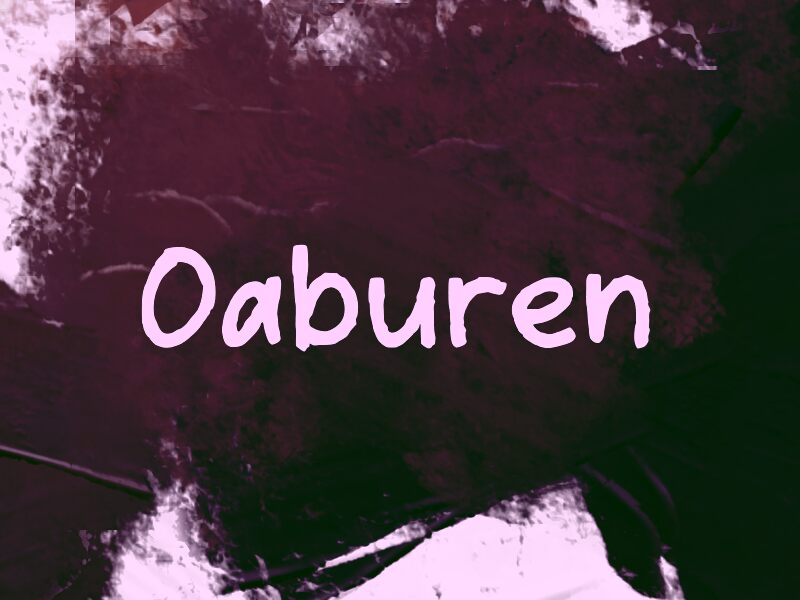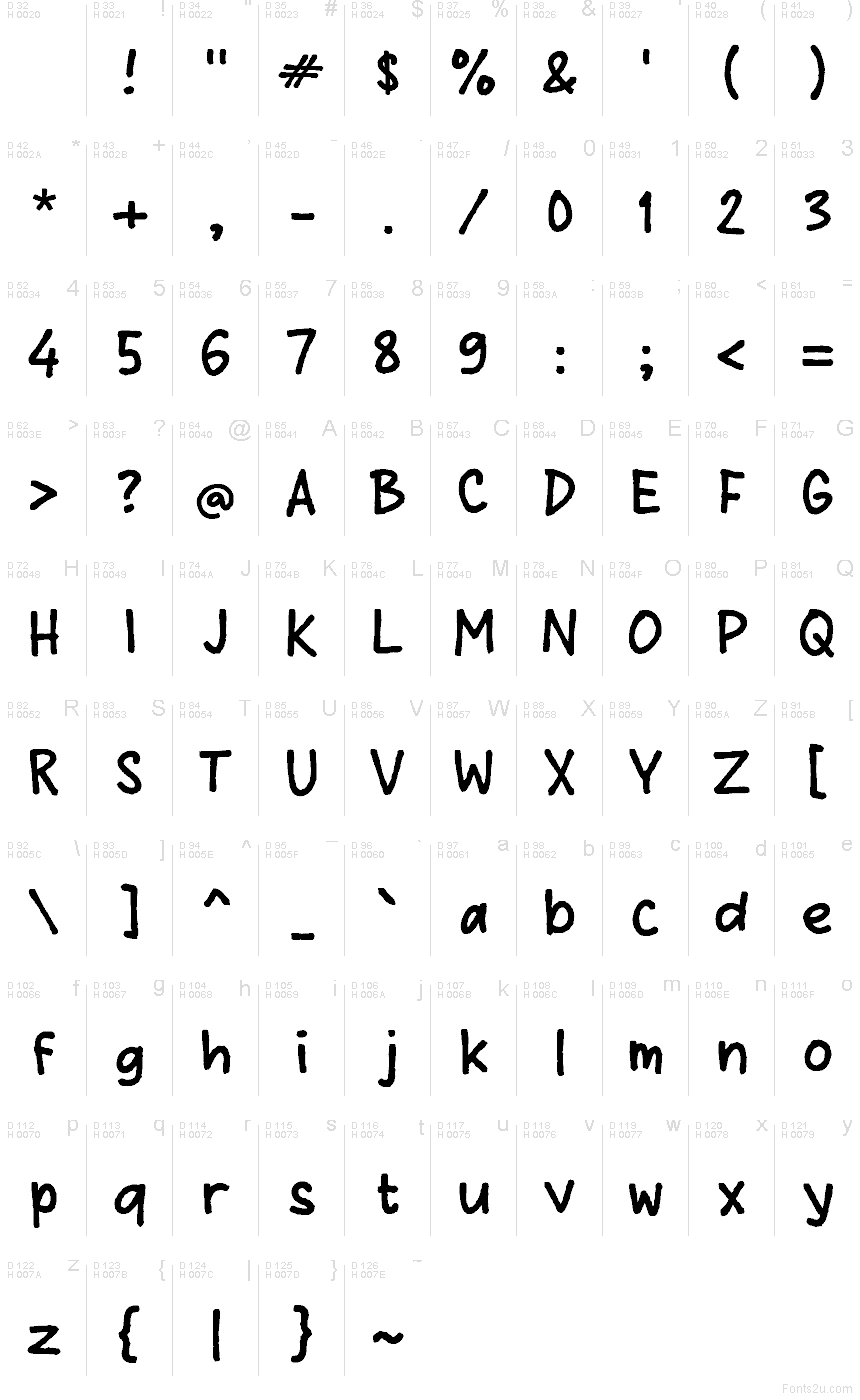
Oaburen
Oaburen font by wepfont.com is a free brush font that finally makes hand-painted type easy to read at more than just a word or two. Its strokes feel inky and slightly rough, but the rounded shapes, steady rhythm, and open counters keep everything friendly and legible. You get the warm, human energy of marker lettering without the usual chaos or strain on the eyes.
Using Oaburen, you can carry a handmade vibe through posters, product packaging, social media graphics, kids’ projects, and casual branding without sacrificing clarity. This free font shines on quotes and headlines, but it can also handle short paragraphs when given a little breathing room. Pair it with a clean geometric sans for body copy, and let Oaburen take the lead at larger sizes where its textured brush character really comes alive.